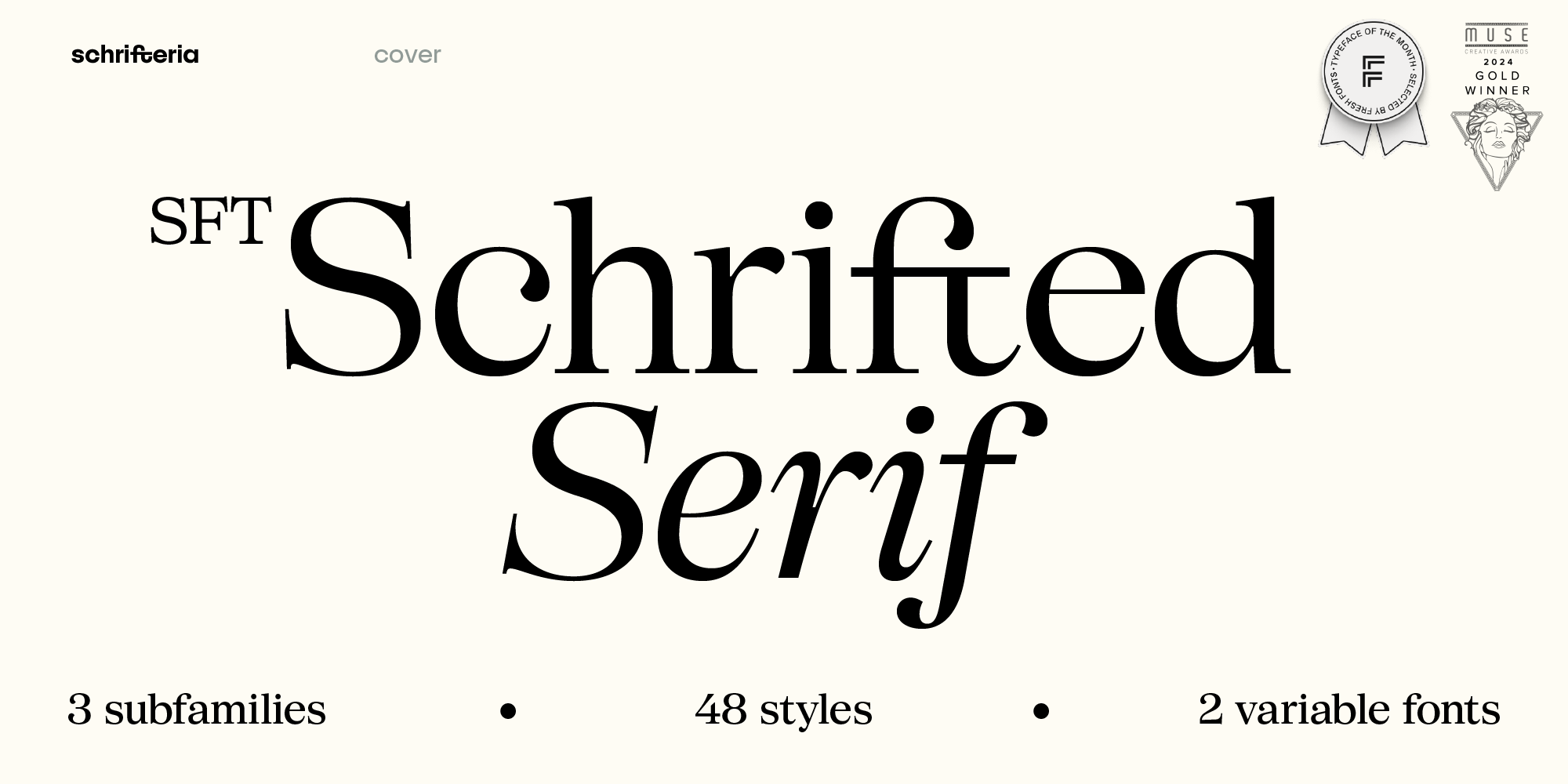
The SFT Schrifted Serif Font is an exquisite choice for projects that demand a blend of classic elegance, modern sophistication, and unparalleled readability. Inspired by the romantic and organic atmosphere of Stockholm, it’s perfectly suited for editorial design (magazines, books, digital articles), corporate branding, luxury product packaging, website typography for high-end services, art gallery catalogs, and any design that benefits from a refined, graceful, and highly legible presence. Its unique character, combining baroque elements with a clean structure, makes it ideal for conveying a sense of authority, trustworthiness, and timeless beauty.
What makes SFT Schrifted Serif Font so exciting is its meticulously crafted design, balancing traditional proportions with a contemporary edge. It features unique elements like organic teardrop shapes, dynamic italics, and rounded forms, which give it a distinct personality without compromising on clarity. This font exudes a sense of understated luxury, making your text feel both distinguished and approachable. The clarity of its letterforms ensures excellent legibility across various sizes and applications, from commanding headlines to delicate body copy. It’s a powerful tool for conveying important messages with grace and impact, adding a touch of romance and sophistication to your visual narrative.
The SFT Schrifted Serif Font family is exceptionally comprehensive, offering a wide array of weights and styles to provide maximum flexibility for designers. It's often structured into three optical sizes: Text (for small sizes and long passages), Subhead (versatile for both text and mid-sized headlines), and Display (for expressive and large headlines, posters, and logos). Within each optical size, you can expect a full spectrum of weights, from ExtraLight and Light to Regular, Medium, DemiBold, Bold, ExtraBold, and Black, often accompanied by complementary italic versions. This broad family, including its variable font option, allows for versatile typographic hierarchies, advanced OpenType features (like stylistic alternates and ligatures), and extensive language support, making SFT Schrifted Serif Font Free Download an invaluable resource for designers.
Whether you're designing a sophisticated annual report, crafting a brand identity for an upscale boutique, or creating compelling editorial layouts, the SFT Schrifted Serif Font offers an indispensable tool. Its classic appeal, contemporary adaptability, and rich feature set make it a top-tier choice for any project that requires a typeface of distinction and professional polish.